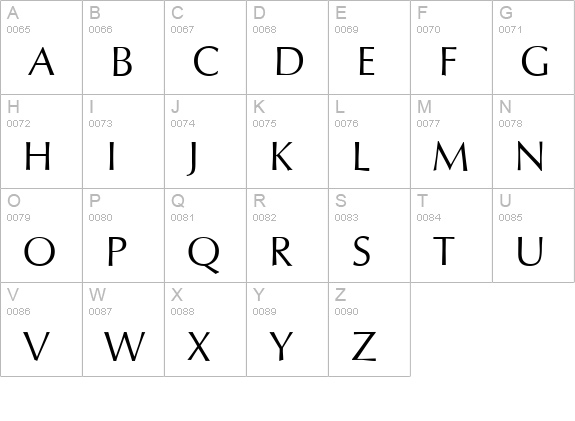
O801-Flare-Regular is the standard, neutral variant in the O801 typeface family \xE2\x80\x94 well suited to general body text, paragraphs, and standard typographic work.
O801-Flare-Regular is a stunning and versatile font that exudes elegance and sophistication. Its sleek lines and modern flair make it the perfect choice for a wide range of design projects, from branding to editorial design. The font features a unique blend of sharp edges and flowing curves, creating a dynamic and eye-catching aesthetic. What sets O801-Flare-Regular apart is not only its striking design but also the fact that it is available for free download at FontsMarket.com. This means that you can easily access this high-quality font without any cost, making it a valuable addition to your font library. Whether you are working on a professional project or simply looking to add a touch of style to your personal creations, O801-Flare-Regular is sure to impress with its modern appeal and versatility. Download it today and elevate your designs with this fantastic font.